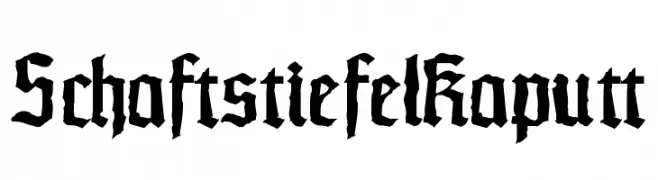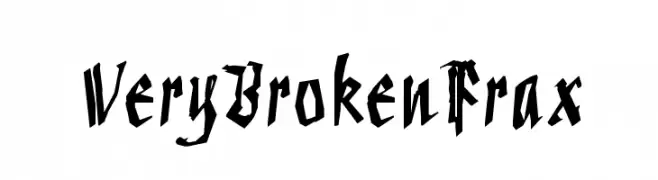
A bold, angular blackletter style font with dramatic strokes.
A bold, decorative blackletter font with ornate detailing and enclosed characters.
A bold and intricate Blackletter font with dramatic, ornate letterforms.
A bold, gothic-inspired decorative font with intricate details and a medieval flair.
A bold, Gothic-style font with sharp, angular characters and high contrast.
A bold, decorative font with gothic and medieval influences, featuring intricate and ornate designs.
A bold, flame-inspired font with dramatic, dynamic characters.